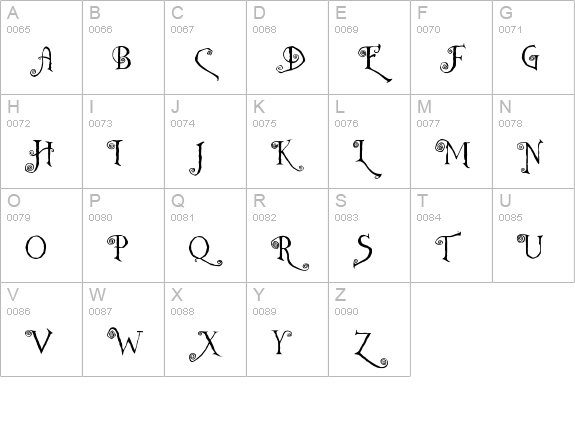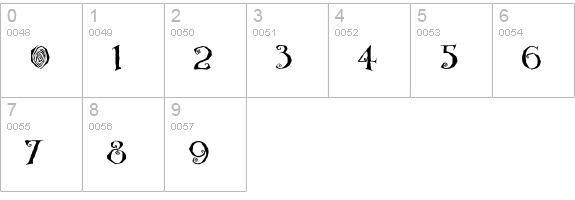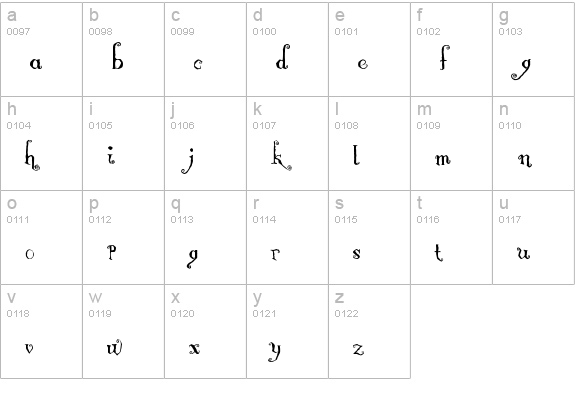
Nemo Font Details
Nemo font is a stunning and versatile typeface that will bring a touch of elegance to your projects. With its sleek lines and modern design, Nemo is perfect for a wide range of applications, from branding to web design to print materials. This font exudes sophistication and style, making it a great choice for anyone looking to make a statement with their typography. Best of all, Nemo font is completely free to download at FontsMarket.com. This means that you can add this beautiful typeface to your collection without having to spend a dime. Whether you're a seasoned designer or just starting out, Nemo font is sure to become a go-to choice for all your creative endeavors. Download it today and see the difference it can make in your projects!